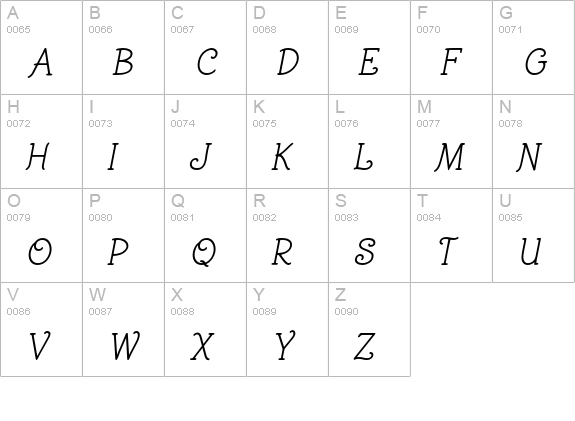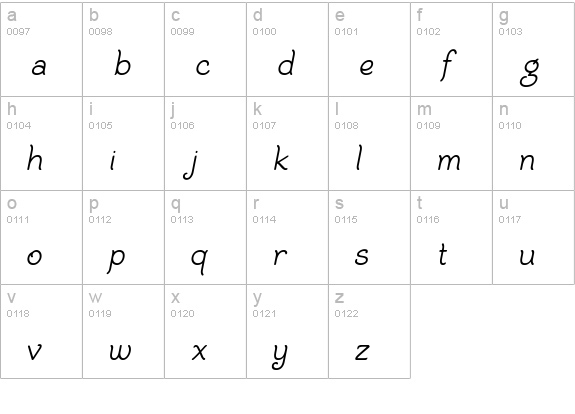
Birac DT Oblique Font Details
Birac DT Oblique is a distinctive, italic variant in the Birac typeface family \xE2\x80\x94 well suited to design and typography projects.
Birac DT Oblique is a stylish and modern font that exudes sophistication and elegance. Its sleek lines and unique slant add a touch of dynamic energy to any design project. With its bold yet graceful appearance, Birac DT Oblique is perfect for creating eye-catching headlines, logos, and branding materials. This versatile font is freely available to download at FontsMarket.com, making it accessible to designers and creatives seeking a high-quality typeface to elevate their work. Whether used in print or digital media, Birac DT Oblique will surely make a lasting impression with its contemporary aesthetic and timeless appeal. Let this free font inspire your next creative endeavor and watch your designs come to life with style and flair.